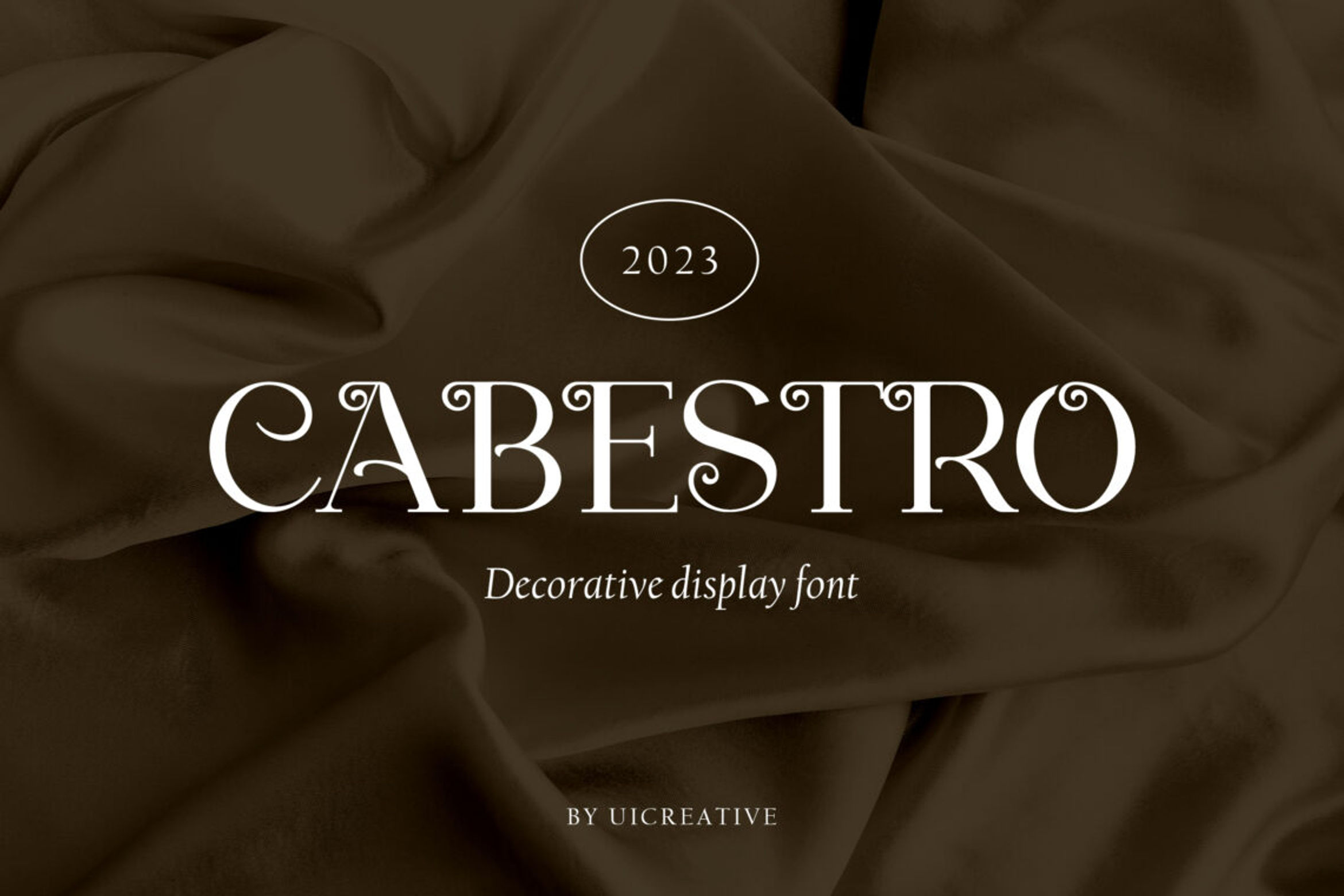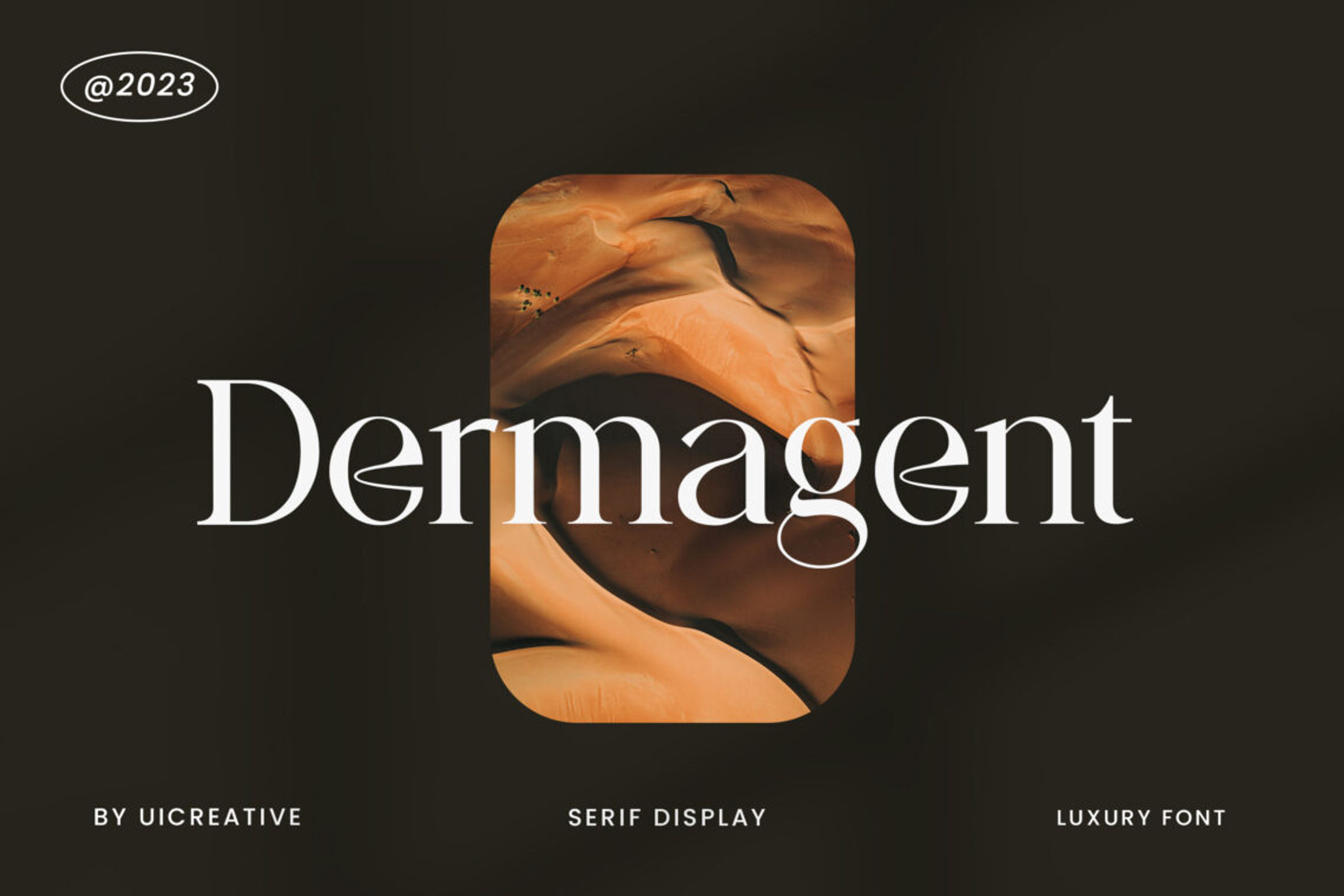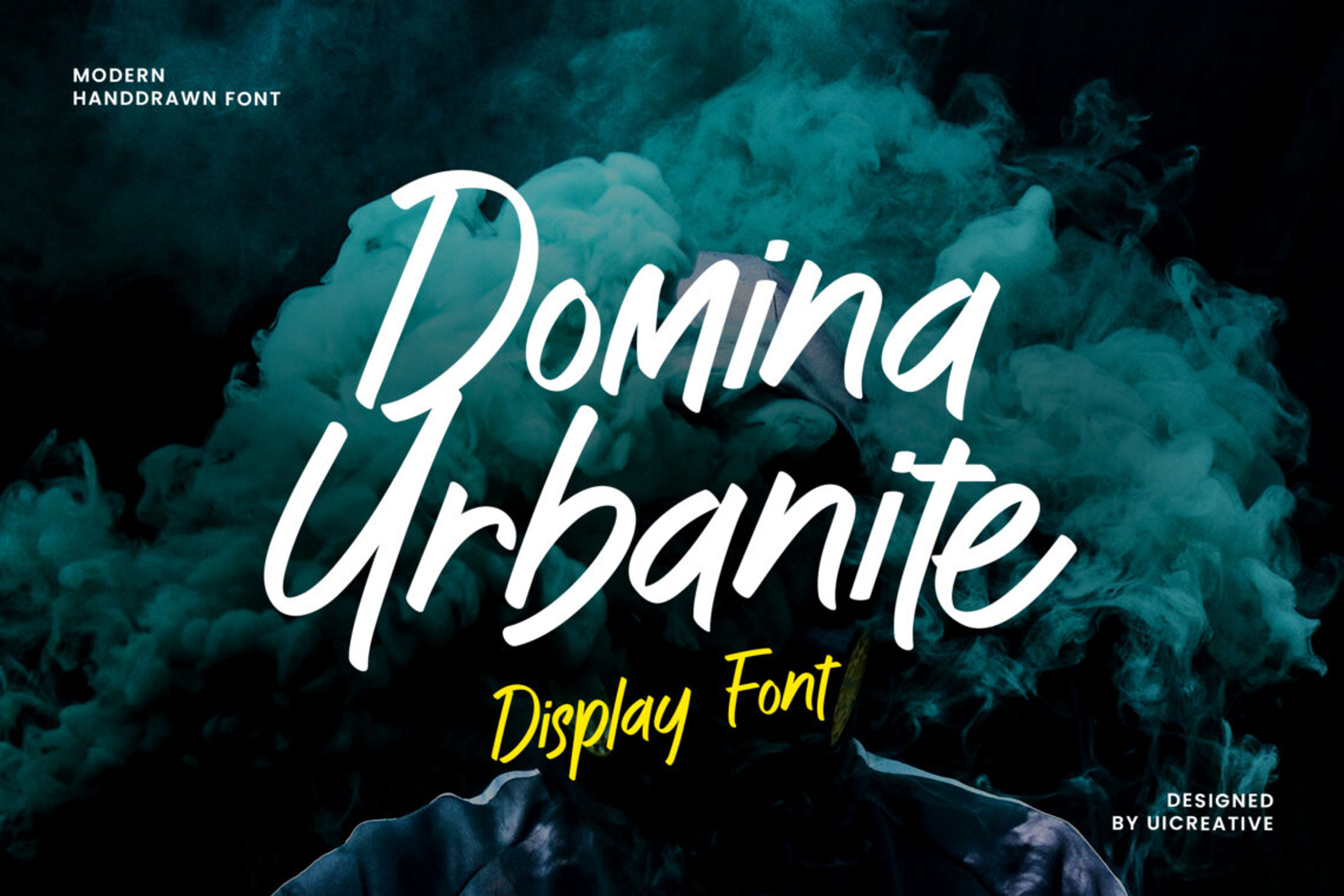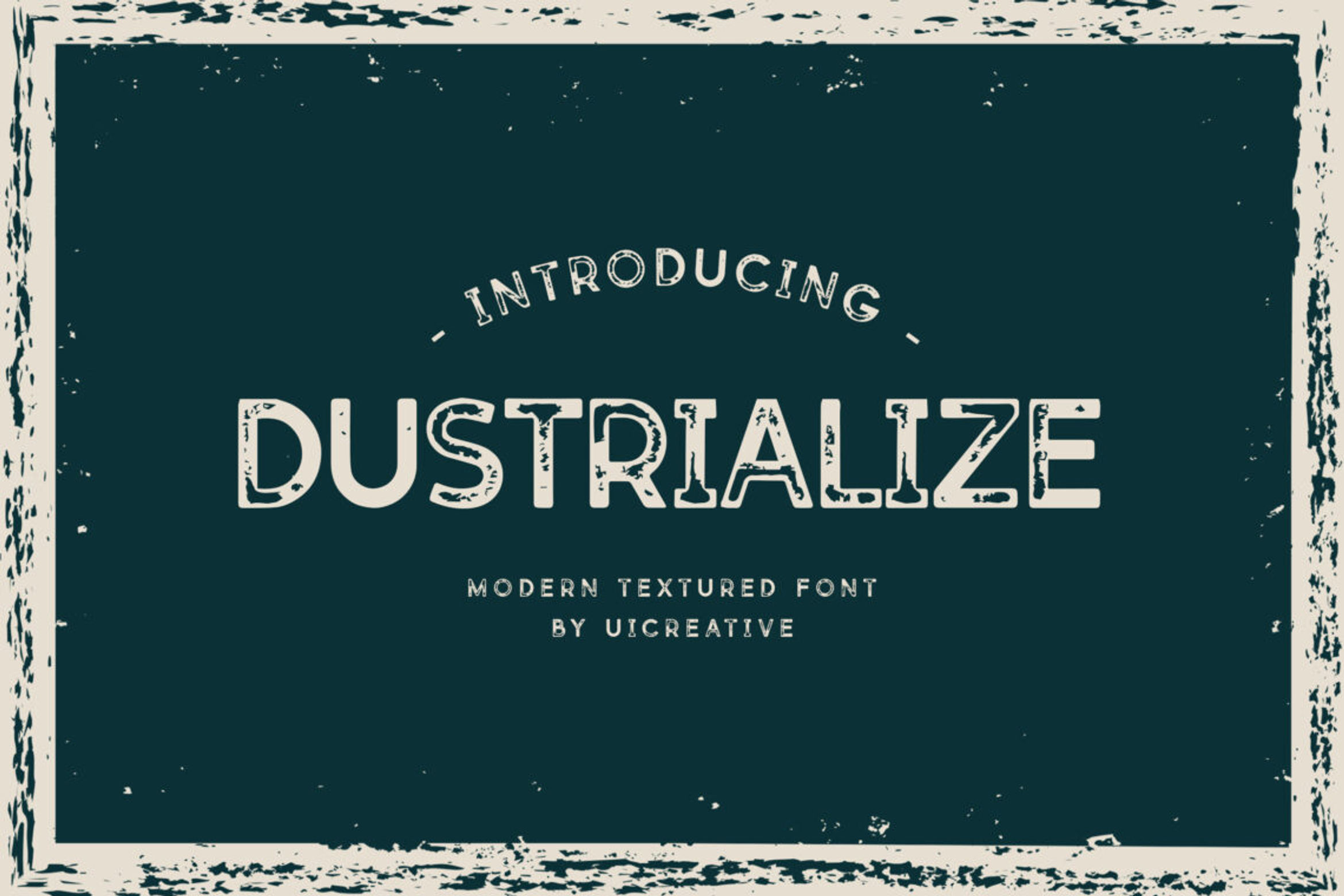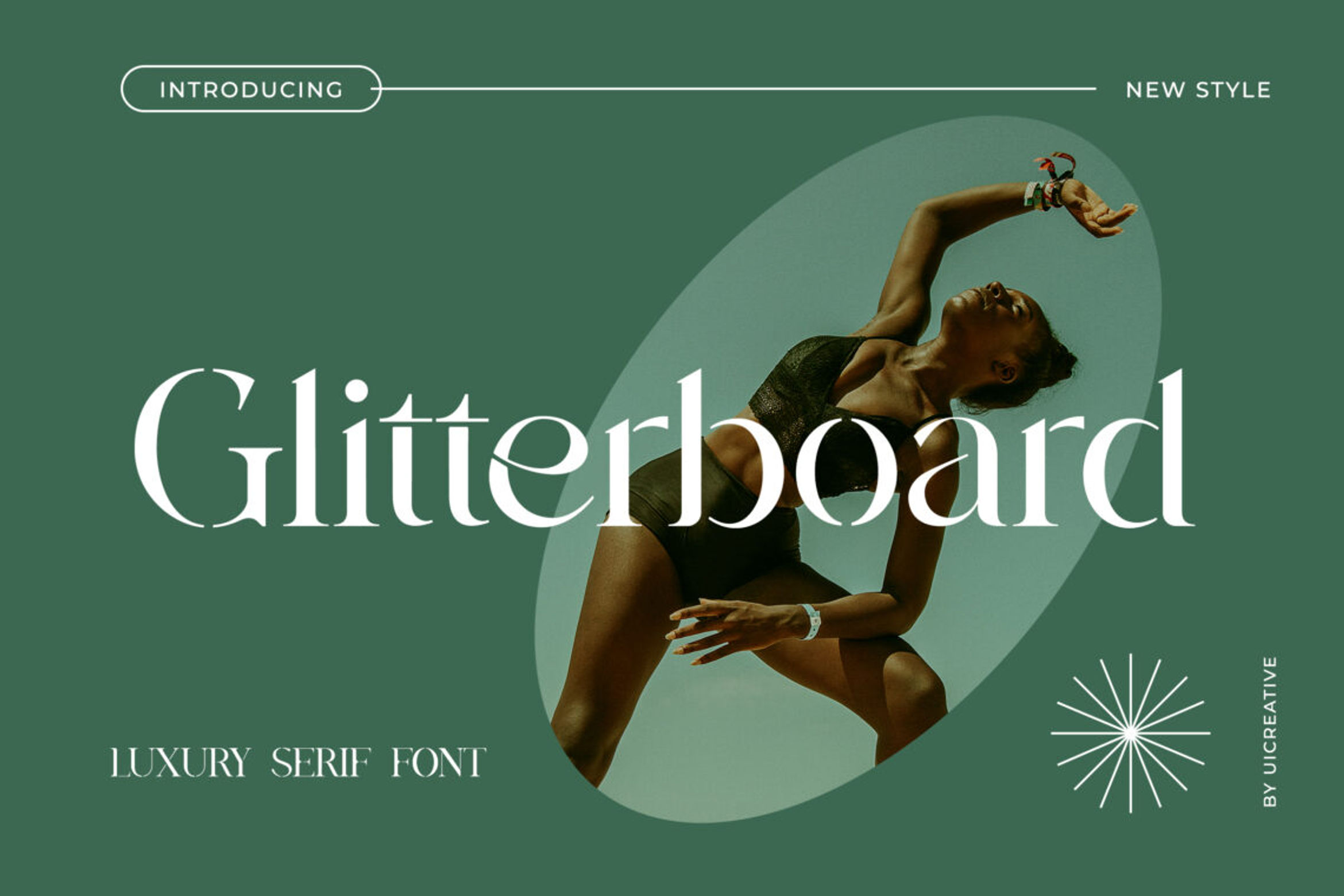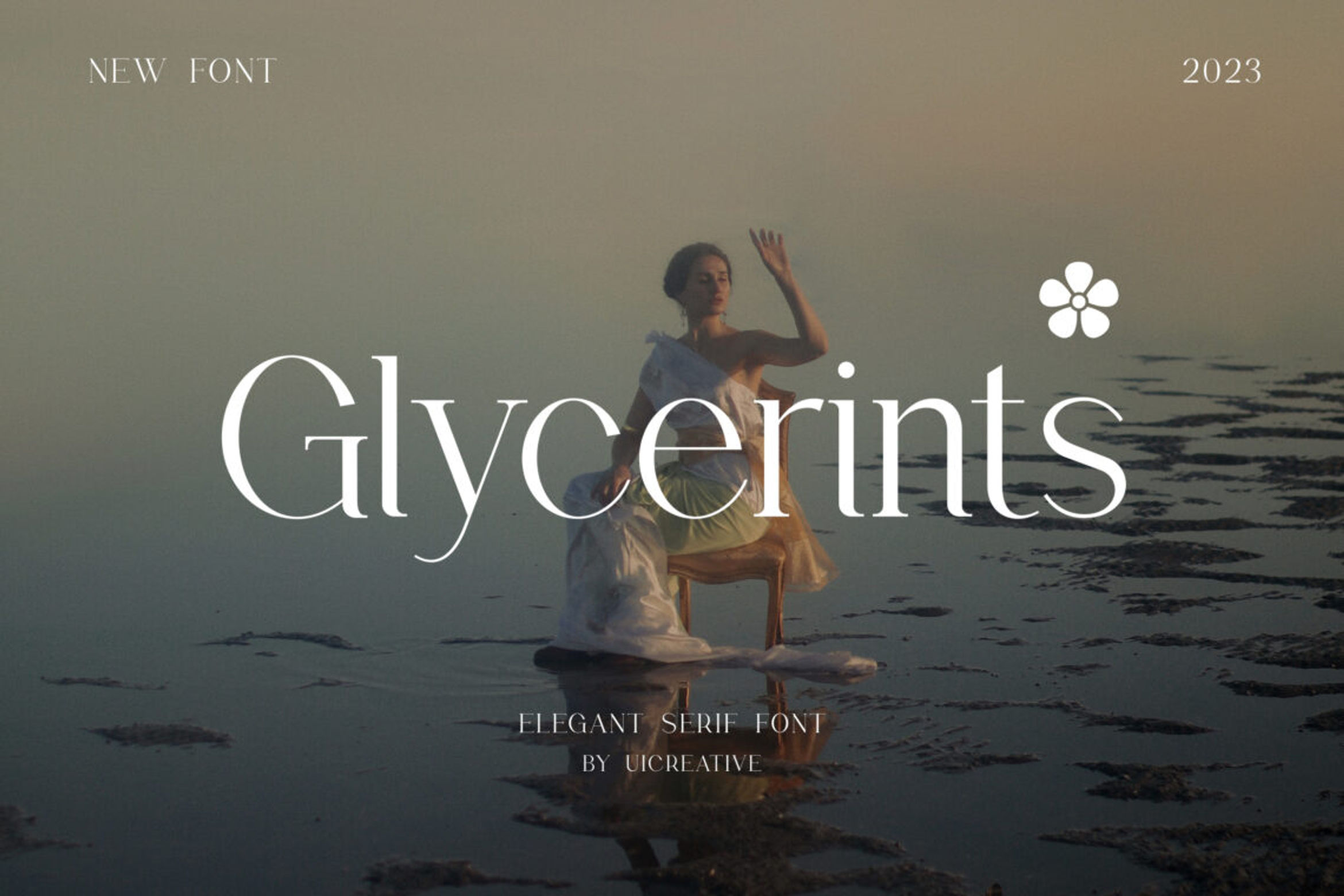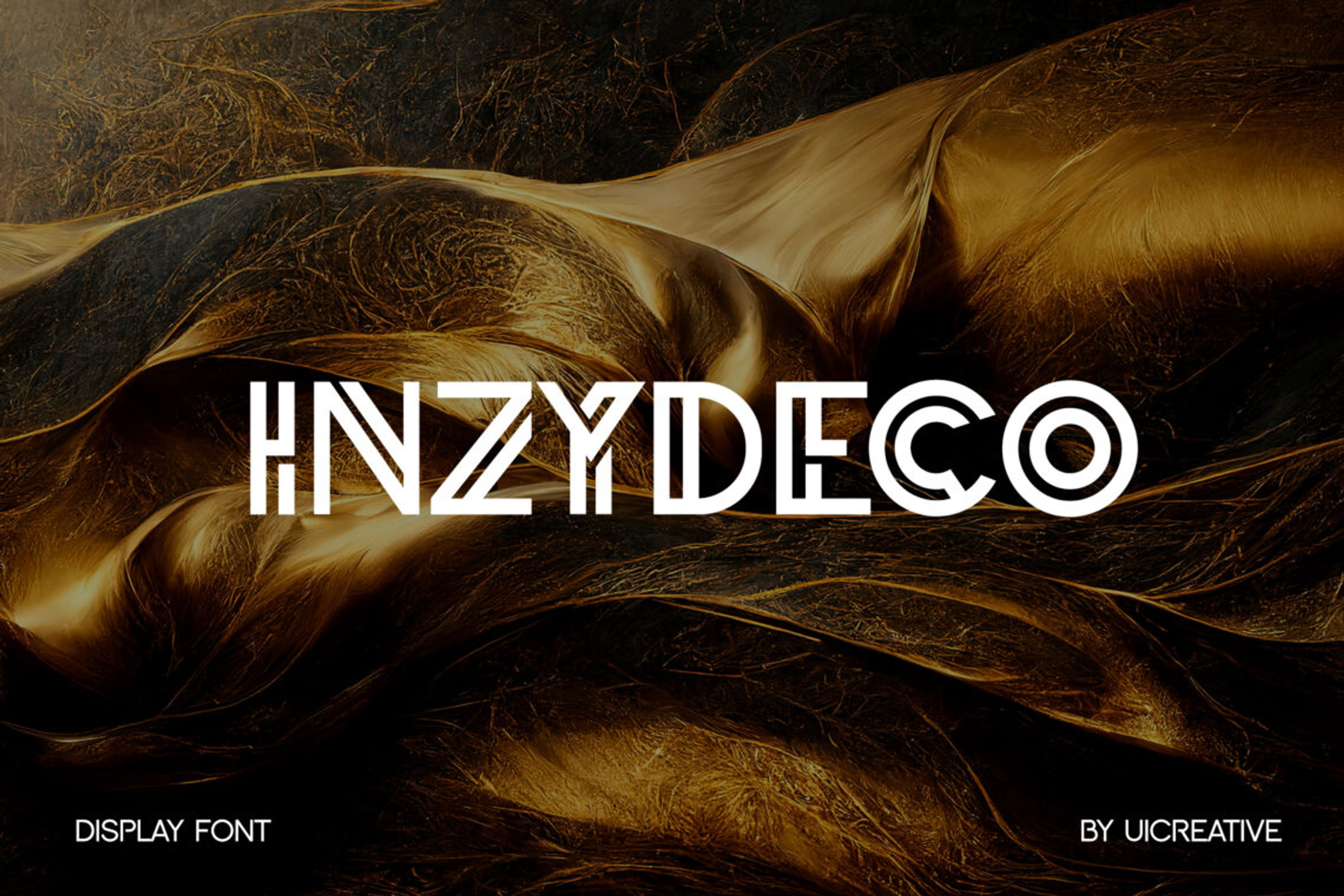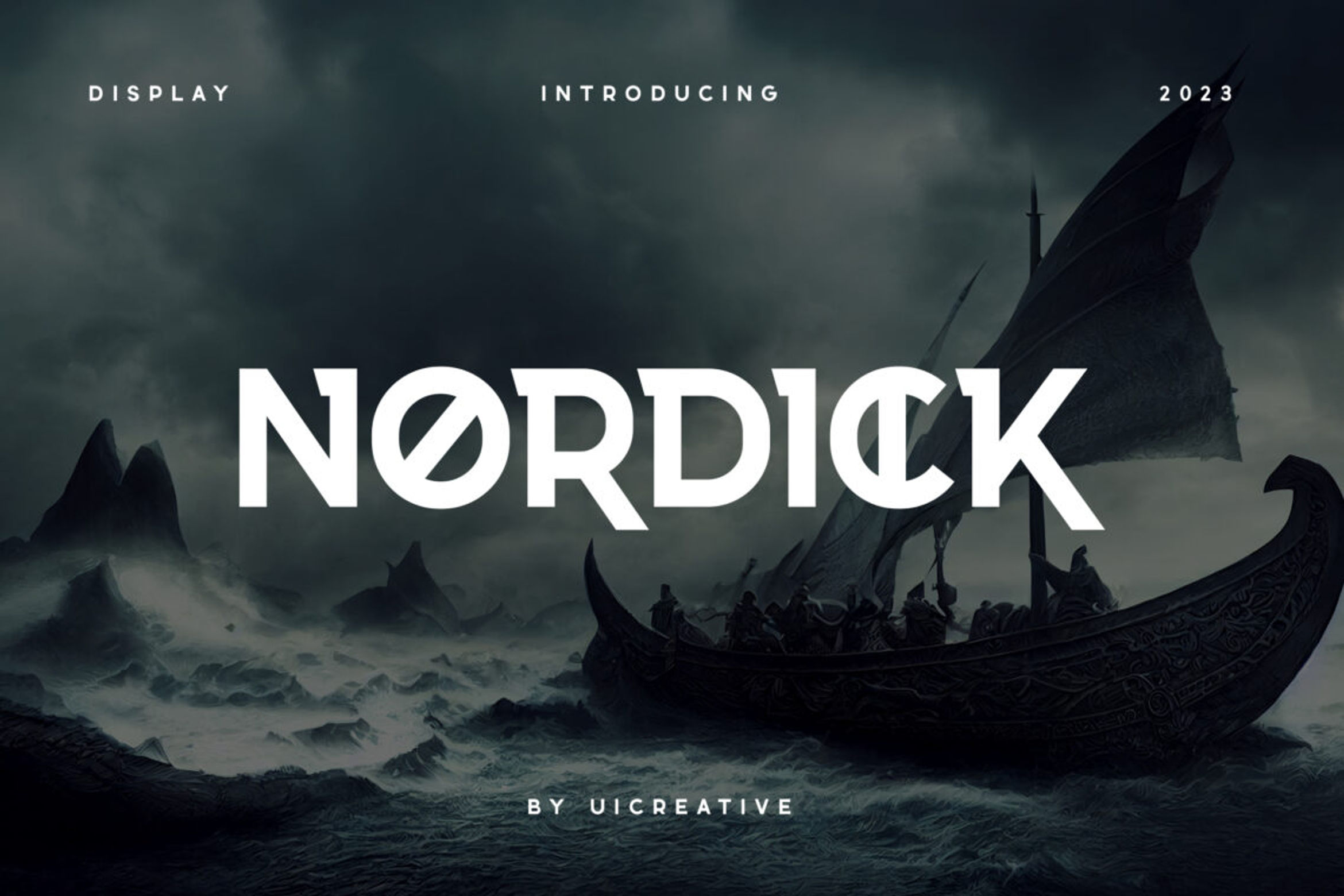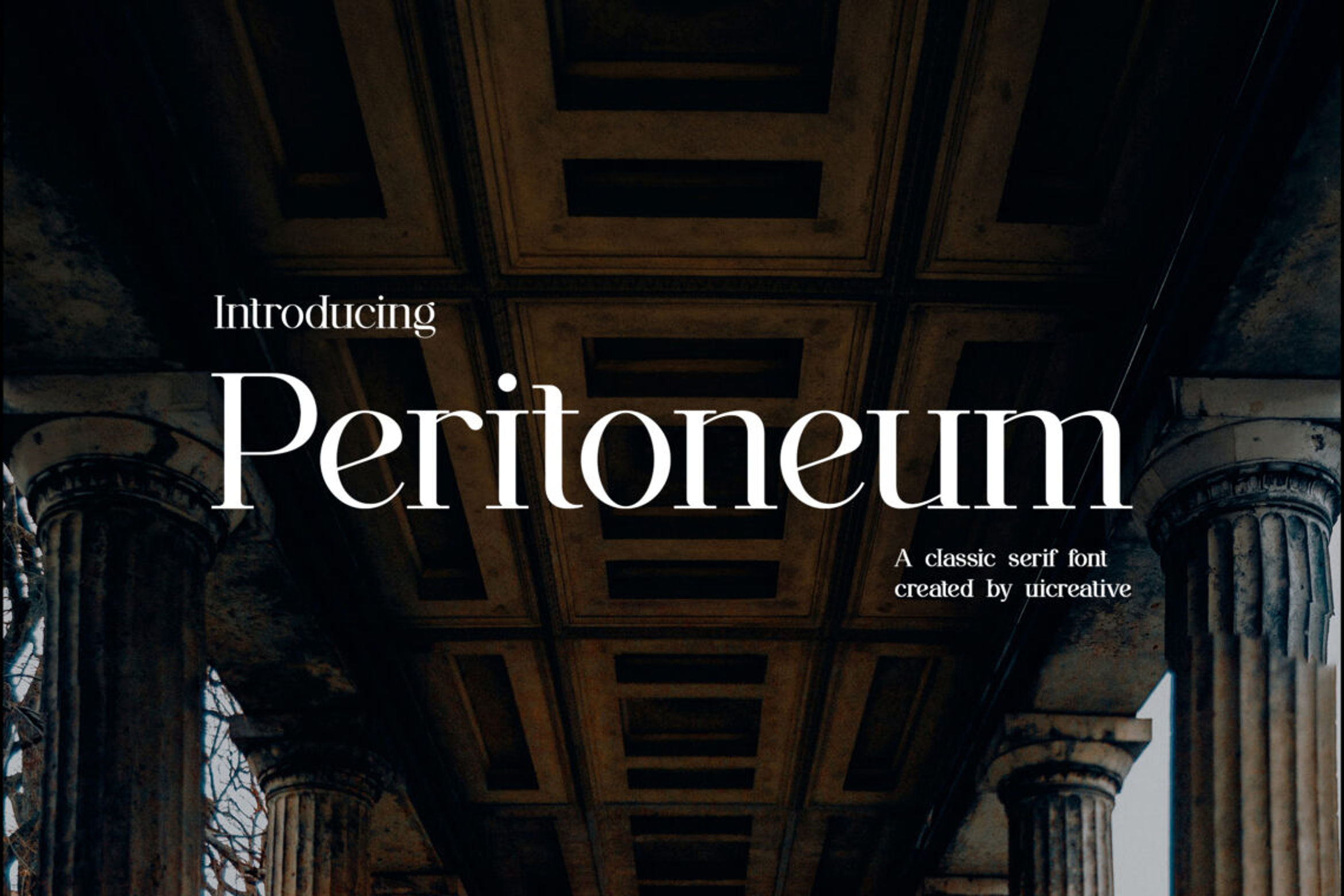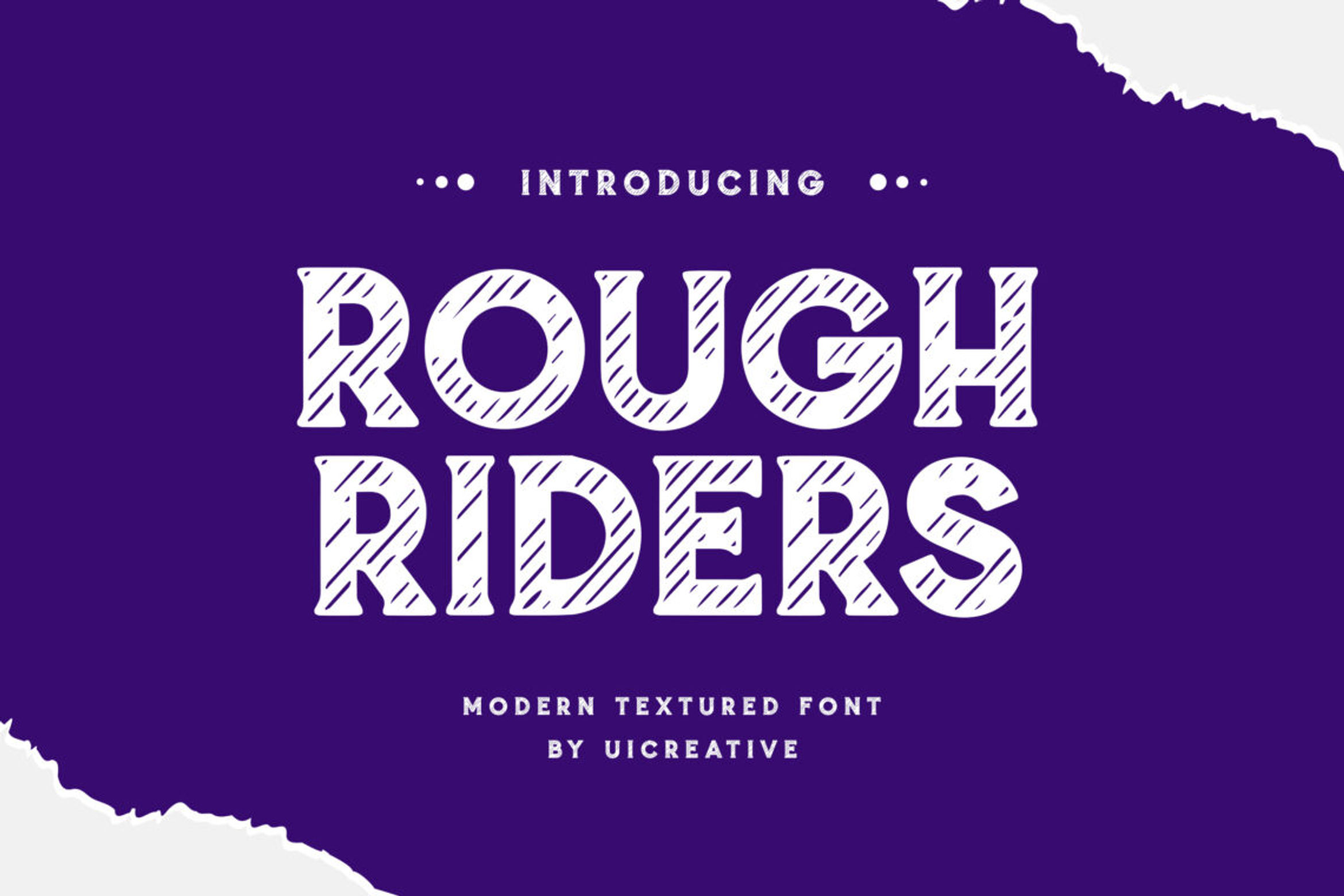
15 Best Types Display Font (2023)
Display font is the instrument you absolutely must use when you need to attract the readers’ attention. This typeface is ideal for effectively communicating the content you want your clients to understand, facilitating their processing of the information, and piquing their attention, so they continue reading. Because of this, selecting a display font can be difficult because it might alter the likelihood that your followers will continue to be interested. The good thing is that once you choose the one that is right for the situation, they won’t get past you anymore.
What means display font mean?
What is the display font definition? In a nutshell, it is a typeface typically employed for things like advertisements, billboards, or the covers of magazines. The primary objective of using such a font is to attract the audience’s attention and entice them so that they get interested in what you are writing about. These display fonts are a thoughtful combination of traditional calligraphy and contemporary forms of typography.
The fact that their shapes and sizes never repeat themselves is one of the many factors that contribute to the exhilarating nature of the font selection process. Because there are so many skilled designers, finding one that fits your requirements perfectly should not be too difficult. We’ve compiled some of the most eye-catching display fonts here so that you can find something that works perfectly for the design project you’re working on.
What is an example of a display font?
This article has the 15 best display fonts by UICreative, especially for you. What are they?
1. Cabestro Modern Serif Display Font
Cabestro Modern Serif Display Font
This contemporary grotesque typeface is characterized by its sharpness, boldness, and directness. It also features many weight and size variations. The Velodrome is dynamic and conventional, giving a straightforward aesthetic, hinting at no extraneous components with its pointed and thick edges. In addition, Cabestro has a simple aesthetic. This competitor for the San Serif family has just the right amount of loud and official to work well for things like business cards, reports, and other corporate materials.
2. INZYDECO Sans Serif Display Font
INZYDECO Sans Serif Display Font
UICreative’s Saxvon will likely meet your needs if you search for sophisticated and up-to-date typography. The size of the letters is both traditional and cutting-edge at the same time. This is because they maintain a polished sense of utility and minimalism. This font may quickly become a favourite, making it ideal for editorial campaigns and web design.
3. Domina Urbanite Modern Handwritten Display Font
Domina Urbanite Modern Handwritten Display Font
The typography that was popular during the time of prohibition served as inspiration for the design of the Headway font, which offers a style that is both clean and rugged. The vector object pack is a bonus to the set, designed by UICreative and includes font versions in a clean and rough style. With its historically inspired design, the Headway font is an excellent choice for logos, mock-ups, posters, and any other project that could benefit from its wonderful design.
4. Chinchilla Vintage Serif Font
Chinchilla Vintage Serif Font
Chinchilla Vintage Serif font, a sans-serif typeface from the future, will lend your promotional materials an ethereal air. You can toggle between the primary letters and other variants of each letter. Various sci-fi horror films initially influenced Chinchilla, and today it is a fantastic option for those who want to make a statement with their flyers and posters.
5. Gliterboard Luxury Serif Font
Gliterboard Luxury Serif Font
Glitterboard, a typeface that can be authoritative in capital and sweet in lowercase, celebrates the stark beauty of rounded letterforms, sharp corners, and strong lines, making it an excellent choice for constructing clear logos. Despite all of that, the typeface in question is friendly and approachable. It doesn’t become overly stressful to look at, even though its aesthetic is fundamentally substantial and occasionally hefty. Glitterboard is one of the most captivating fonts on the list because it works equally well in official and informal contexts, making it ideal for use in creative endeavours, magazine articles, and book covers. It is also one of the most versatile fonts on the list.
6. Bosky Evanish Luxury Sans Serif Font
Bosky Evanish Luxury Sans Serif Font
UICreative designed the one-of-a-kind, adaptable, and adorable Bosky Evanish. It is a vintage serif font with a groovy vibe and alternates and ornaments, allowing you to craft a spectacular presentation. The typeface has a look that can only be defined as funky. The Bosky Evanish is ideal for various magazine designs, wedding projects, and even logos related to kids or children. Using this typeface will provide your next project with a groovy vibe.
7. Dermagent Luxury Serif Display Font
Dermagent Luxury Serif Display Font
Dermagent Luxury Serif display typeface inspired by the Victorian style. It was developed as an all-caps font with an exquisite yet traditionally sombre vibe. UICreative designed the font. This font is an excellent selection for use in headlines, on t-shirts, or in displays like posters, signage, and storefronts. The package includes open-type features that you can apply to your design to give it a more calligraphic appearance.